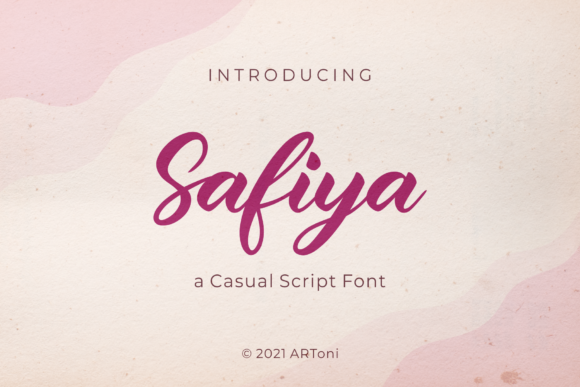
Discover Safiya, an enchanting script font designed to turn your creations into captivating masterpieces. With its graceful lines and playful curves, Safiya brings a touch of whimsy and elegance to your designs.
Crafted by the talented ARToni, Safiya is the perfect choice for card making, greeting cards, posters, and any project that calls for a personal touch. Its versatile nature makes it suitable for a wide range of styles, from vintage-inspired designs to modern and contemporary creations.
Let Safiya's enchanting characters dance across your pages, bringing life and charm to your words. Its unique design captures the essence of handwritten letters, adding a personal touch to your projects.
With Safiya, your creations will blossom with creativity and personality. It's a font that invites you to explore your imagination and express your unique style.
So, indulge in Safiya's charming embrace, and watch as your creative ideas transform into extraordinary works of art.